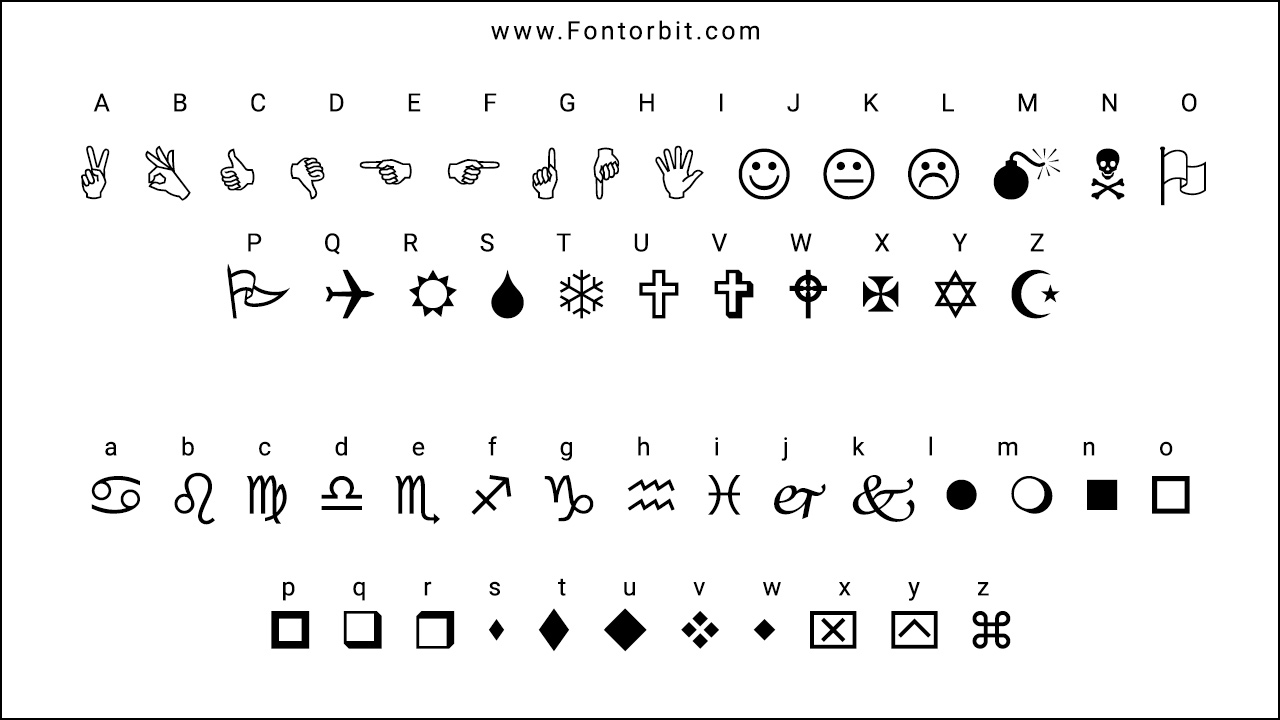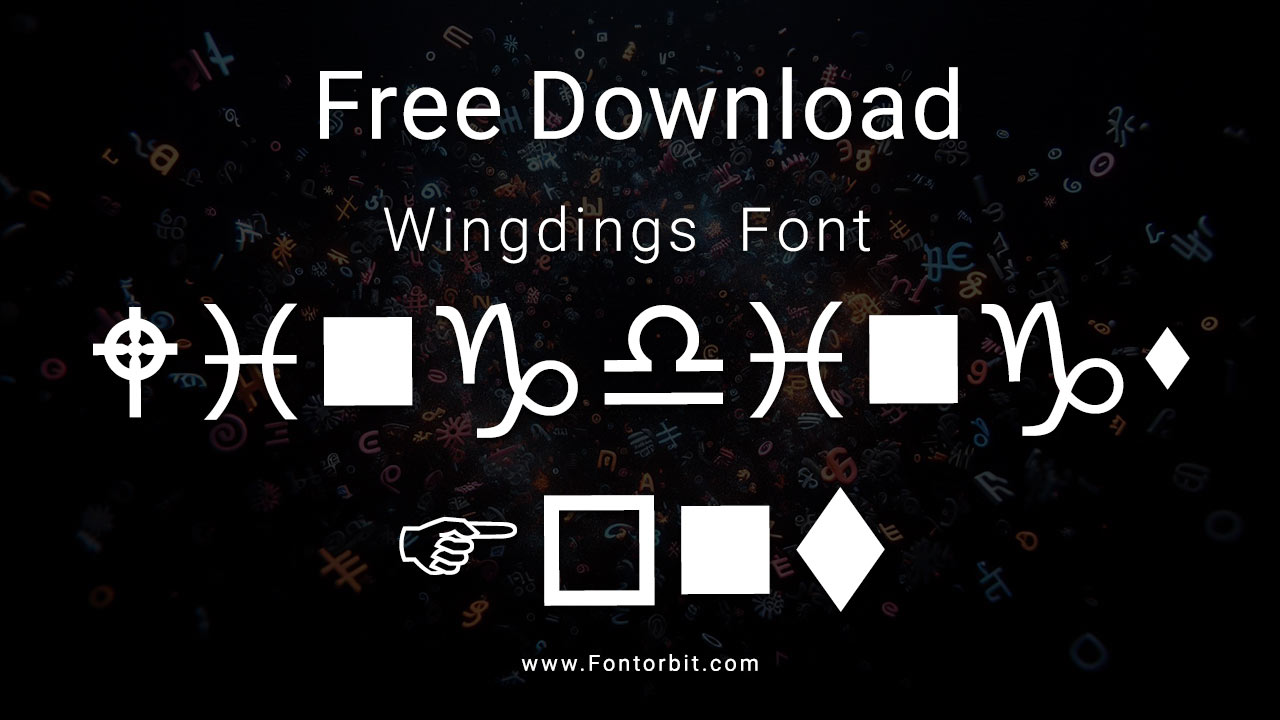
Wingdings is a symbolic font style that was designed by Charles Bigelow and Kris Holmes and was published in 1990 by Microsoft.
This font became popular due to its unique use of symbols instead of letters, often used for creating graphics and decorative content. Wingdings belongs to the Dingbat category within the Sans-serif family.
Wingdings Font Family Includes
Wingdings font belongs to a family of Dingbats and Symbol fonts that feature non-alphabetical uses. These fonts offer a range of pictographs that can be useful for design and graphical representation.
Here’s what the Wingdings family includes:
- Wingdings 2
- Wingdings 3
Each version includes unique symbols like arrows, shapes, and ornamental icons.
Notable Uses Of Wingdings
People widely use Wingdings for various purposes that require symbolic representations. Some of the notable uses include:
- Graphic design and decorative artwork
- Custom icons in presentations
- Labels and signage for quick identification
- Enhancing content with decorative symbols and accents
- Used in spreadsheets for checkmarks, crosses, and basic icons
Wingdings can be a great asset when you want to add visual symbols quickly without importing separate graphic elements. It is best used for:
- Use simple symbols in presentations to illustrate points.
- Designing visual content such as infographics, newsletters, and brochures.
- Creating simple signage and labels.
- Software development for embedding pictographic symbols.
Wingdings has remained a classic symbolic font since its inception and continues to be used in various fields due to its versatility and utility in representing ideas visually. Although Wingdings may seem unconventional as a font, it fulfills an important niche in the world of typography. Designers often turn to it for quick and simple symbol solutions, making it a valuable addition to any font library.
1.What Is The Wingdings Font?
Wingdings is a symbolic font designed by Microsoft, consisting of graphic symbols instead of standard letters.
2.Who Designed Wingdings?
Charles Bigelow and Kris Holmes designed the Wingdings font in 1990.
3.What Font Family Does Wingdings Belong To?
Wingdings is part of the Sans-serif family and falls under the Dingbat category.
4.How Many Versions Of Wingdings Are There?
There are three main versions: Wingdings Regular, Wingdings 2, and Wingdings 3.
5.What Is The Difference Between Wingdings And Webdings?
Both are symbolic fonts, but Wingdings primarily uses pictographs, while Webdings includes web-oriented symbols.
What Is The Purpose Of The Wingdings Font?
The purpose is to provide a quick and efficient way to insert graphic symbols for visual communication.